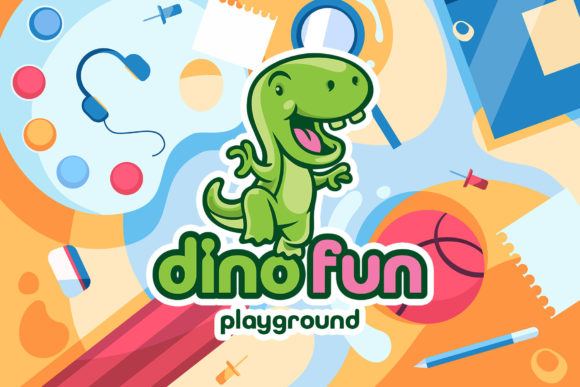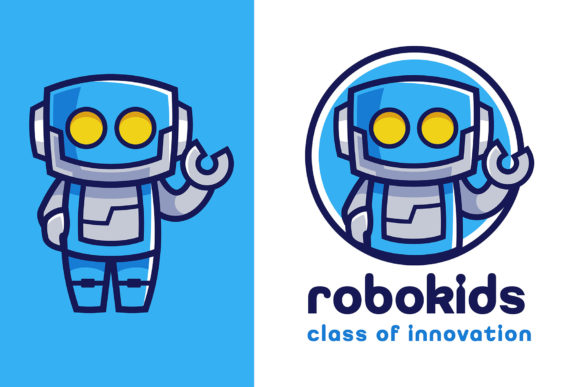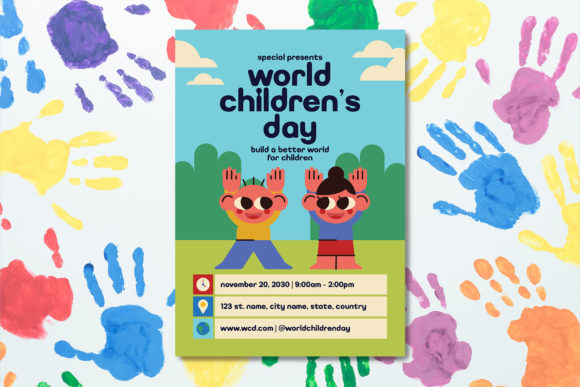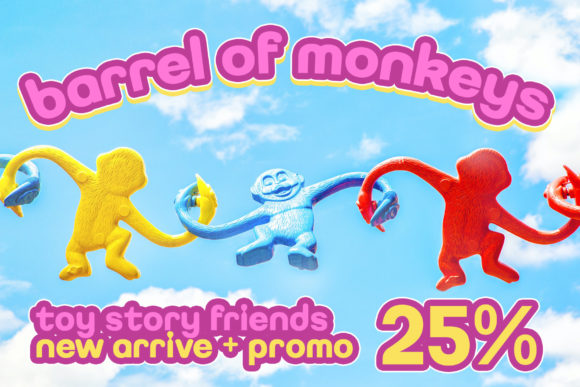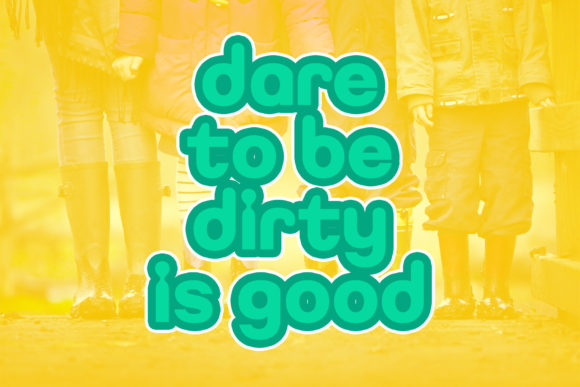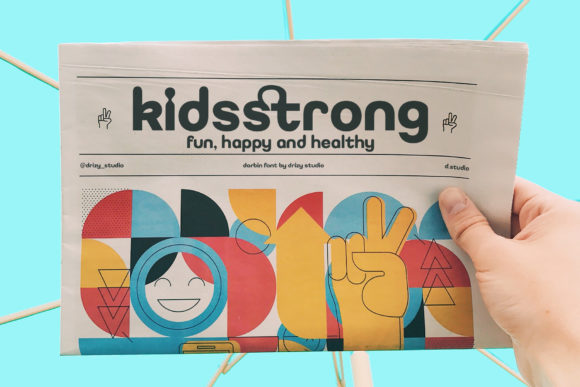
The Magical World of Dorbin Font: A Designer’s Delight
I’ll never forget the time I was working on a children’s activity book project, and I just couldn’t seem to find the right font. The client wanted something playful, yet authentic, and I was determined to deliver. That’s when I stumbled upon Dorbin Font, a cute and colorful display font that embodies playfulness and authenticity. It was love at first sight! 💕
A Personal Review of Dorbin Font
- ✨ Its playful and whimsical vibe makes it perfect for children’s projects, school materials, and even adult designs that need a touch of fun.
- ✅ The font is highly legible, even at smaller sizes, making it versatile for various design applications.
- 💫 Dorbin Font comes with a range of OpenType features, including glyphs and stylistic alternates, which allow for endless creativity.
While Dorbin Font is an amazing addition to any design project, there are a few things to keep in mind:
- ⚠️ Some of the more intricate glyphs might not display correctly on older systems or browsers, so it’s essential to test your design before finalizing.
- 🤔 The font’s playful nature might not be suitable for more formal or professional projects, so use it judiciously.
The Story Behind Dorbin Font
Dorbin Font was designed by a creative team that wanted to create a font that would bring joy and playfulness to designs. Inspired by the whimsical world of children’s books and the imagination of childhood, Dorbin Font was born. The design team aimed to create a font that would be both fun and authentic, with a unique personality that would shine through in any design.
Q: What type of projects is Dorbin Font best suited for?
A: Dorbin Font is perfect for children’s activity books, school projects, and any design that requires a playful, yet authentic touch.